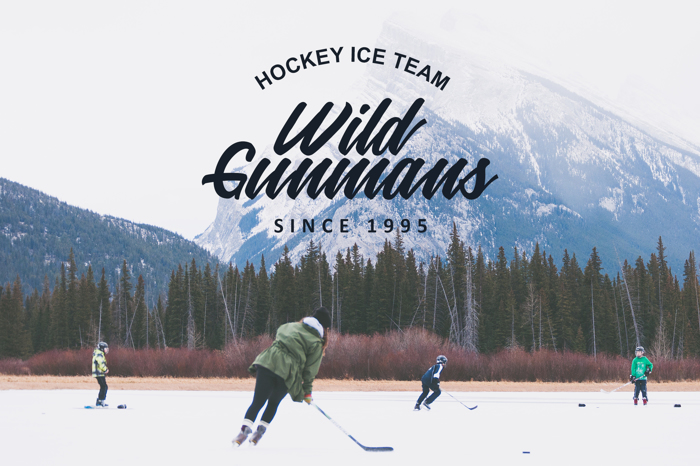
Mattilda Font
This font is good for Brand design, T-shirt, Handwritten logo, Magazine, Inspirational quote posters and many more.
Pretty much digging Mattilda. Feels like when I’ve got to get it done but it can’t look that way, and I’m probably a little ticked off because time is encroaching so labeling boxes or doing a sign over and over as fast as possible becomes more of an angled, up and down slicing thing than the usual circles and curves kind of writing I do when I just don’t care. All that to say what I said at the top — cool font with a fairly hip feel and an attitude I wish I had more of. Nice. Thanks.